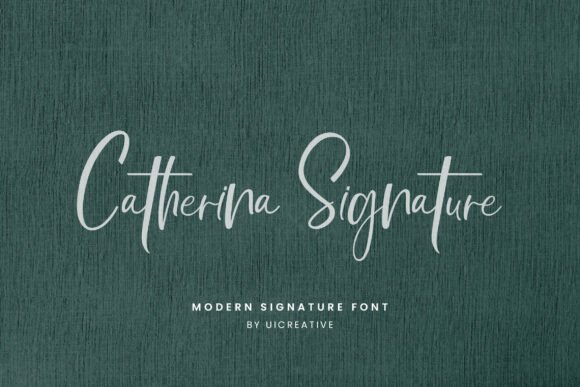
The Catherina Signature Font: Elevate Your Designs with Elegance
Have you ever been in the middle of a design project, and suddenly, you’re stuck on finding the perfect font? I recall a recent experience where I was working on a wedding invitation design, and my client requested a font that exuded elegance, sophistication, and a touch of modernity. After hours of searching, I stumbled upon the Catherina Signature Modern Handwritten Font, and it was love at first sight! ✨
This beautiful font has been a game-changer for my designs, and I’m excited to share my experience with you. In this article, we’ll explore the world of Catherina Signature, its features, and how to make the most of it in various design platforms.
• ✨ Elegant and Classy: Catherina Signature boasts a modern, sophisticated look that’s perfect for high-end designs.
• ✅ Versatile: This font is suitable for a wide range of projects, from signatures and stationery to logos, wedding designs, and more.
• 💃 Fashion-Forward: Catherina Signature showcases both masculine and feminine qualities, making it ideal for fashion-related branding and editorial designs.
While Catherina Signature is an excellent font, there are a few things to keep in mind: ⚠️
• 🤔 Legibility at Small Sizes: Like many script fonts, Catherina Signature may lose legibility at very small sizes. It’s best used at larger sizes (20pt+).
• ⚠️ Glyph Limitations: While the font comes with a range of OpenType features, some users may find the glyph selection limited compared to more extensive font libraries.
The Designer Inspiration Behind Catherina Signature
While the true story behind Catherina Signature remains a mystery, it’s easy to imagine that the designer was inspired by the world of high-end fashion and luxury. Perhaps they sought to create a font that would evoke the elegance of a Parisian boutique or the sophistication of a luxury brand. Whatever the inspiration, Catherina Signature is undoubtedly a masterpiece of modern typography.
A: Catherina Signature is an excellent choice for projects that require an elegant, modern look, such as wedding designs, luxury branding, stationery, and high-end editorials.
Q: Is Catherina Signature a difficult font to read?
A: While Catherina Signature is a script font, it’s designed to be legible. However, like many script fonts, it may be challenging to read at very small sizes. It’s best used at larger sizes (20pt+).